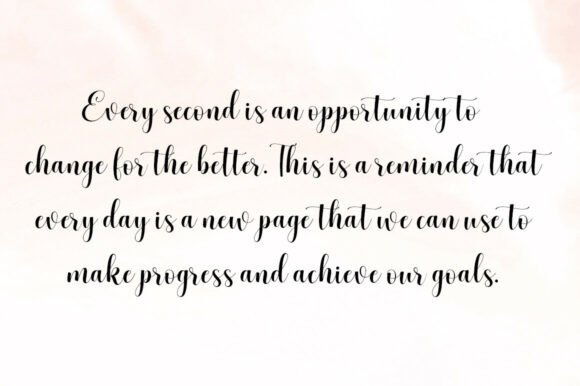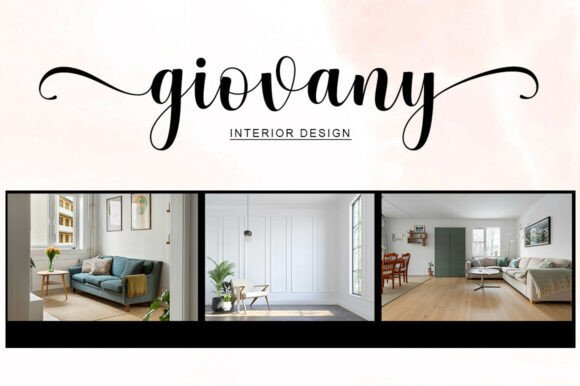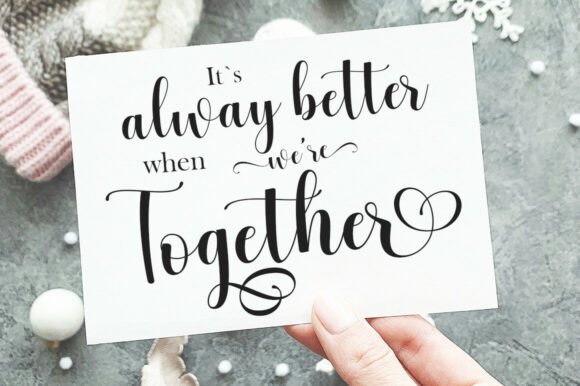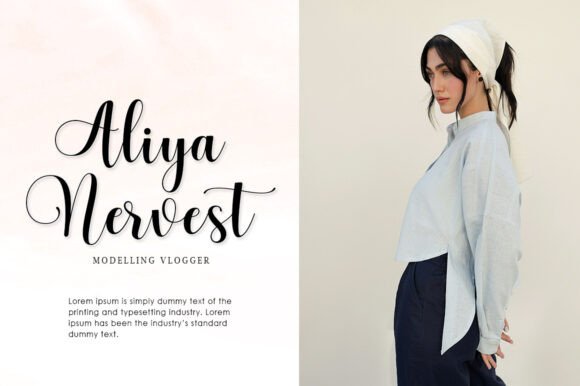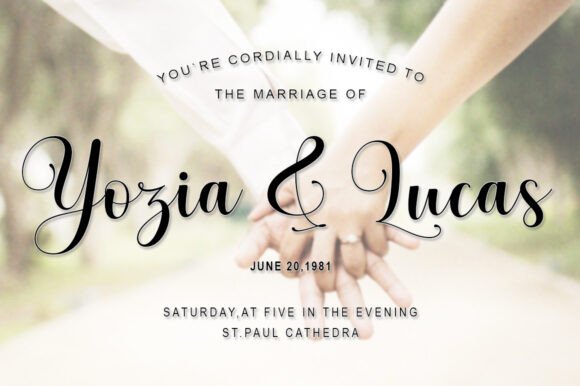
Introduction to Nothing Script Font
As a designer, there’s nothing quite like the thrill of bringing a creative project to life. It’s that moment when all the elements come together in perfect harmony, and your vision starts to take shape. For many of us, it’s the perfect font that sets the tone for the entire design. And if you’re looking for a romantic and sweet calligraphy typeface that’s sure to captivate your audience, look no further than the Nothing Script Font.
With its casual yet elegant charm, the Nothing Script Font is the perfect design resource for any creative project. Whether you’re crafting a wedding invitation, designing a logo, or creating a t-shirt, this beautiful font is sure to add a touch of sophistication and whimsy to your work. And with its high-quality design and transparent background, you can rest assured that your final product will be nothing short of stunning.
About the Nothing Script Font
Key Features of Nothing Script Font
- High-quality, elegant script font suitable for creative projects, wedding invitations, and other design resources.
- Comes with a transparent background, making it easy to use in digital designs and print materials.
- Designed to be highly legible, even at small font sizes, making it perfect for signage, logos, and other design elements.
- Includes a wide range of glyphs and characters, including international characters and symbols.
- Available in various font sizes, with a minimum size of 12pt and a maximum size of 72pt, and a resolution of 300 DPI.
Honest Review: Nothing Script Font
I recently stumbled upon the Nothing Script Font and I must say, it’s been a game-changer for my creative projects. The first thing I noticed was the high-quality design and attention to detail that went into creating this font.
- High-quality design and attention to detail
- Very versatile and suitable for various design projects
However, there are a few limitations to consider: ⚠️ The font may not be suitable for smaller text sizes, as the script style can become difficult to read. Additionally, the font may not be as compatible with older software or operating systems.
Overall, I’m really impressed with the Nothing Script Font and I would highly recommend it to designers looking for a high-quality, versatile font for their creative projects.
Use the Nothing Script Font in creative projects, such as wedding invitations, birthday cards, or social media graphics. Experiment with different font sizes, colors, and styles to achieve a unique design. Combine the Nothing Script Font with other design resources, such as images and shapes, to create a visually appealing design.
Is the Nothing Script Font a high-quality design resource?
Yes, the Nothing Script Font is a high-quality design resource, carefully crafted to provide a unique and elegant look for your creative projects. Its high-quality design ensures that it will look great on a variety of backgrounds and devices.